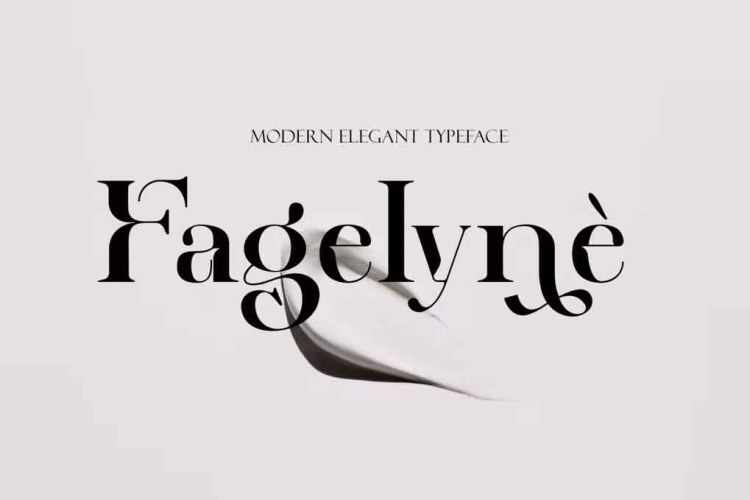
Modern Elegant Font
Looking for a modern and extravagant font that is easily memorable? In the sea of similar designs, something unconventional but tasteful will certainly put your brand on the map.
Introducing Fagelyne – A Modern Elegant Font.
Use this font for promotional material, ads, web pages, apps, clothing, printed material, and anything else you need to make your brand shine.
Where Modern Elegant Font works best
Seasonal campaigns
Modern Elegant Font gives a holiday or themed promotion its own look without redrawing anything; use it for the headline only.
Party and family invitations
Decorative letters set the mood before the text is read. Pair Modern Elegant Font with a plain sans for the practical details.
Game and video titles
Themed lettering sells the world of a game or a channel in one frame.
What kind of work does Modern Elegant Font suit?
It sits in the Decorative Fonts group and reads as branding, decorative, decorative fonts, elegant. That makes it a candidate wherever those qualities help: headings, packaging, social graphics and brand work. Set it at the size you plan to use before deciding.